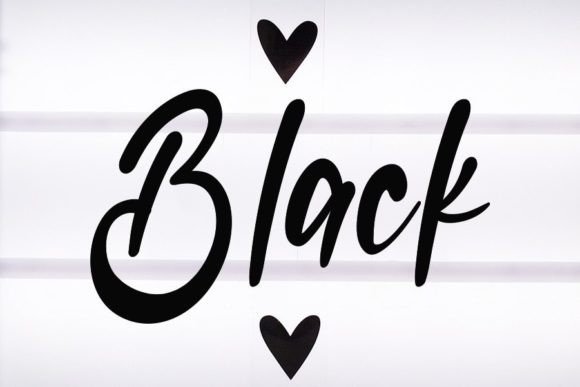
The Magic of Black Font: A Designer’s New Best Friend
I’ll never forget the time I was working on a project for a client who wanted a elegant and sophisticated look. I had spent hours browsing through font libraries, but nothing seemed quite right. That was when I stumbled upon Black Font, a beautiful handwritten font that instantly caught my eye. Its unique blend of elegance and playfulness made it the perfect fit for my project, and I knew right then that I had to share it with the world.
What I Love About Black Font
• ✨ Elegant and sophisticated look that’s perfect for a variety of design projects
• 💫 Unique and distinctive style that sets it apart from other fonts
• 🎨 Highly versatile and can be used for a range of applications, from logos to social media graphics
While Black Font is an amazing font, it’s not without its quirks. For example:
• 🤔 It can be a bit overused, so make sure to use it sparingly to avoid clichés
• ⚠️ Some of the glyphs and special characters can be a bit finicky, so be prepared to do some troubleshooting
The Backstory Behind Black Font
Black Font was designed by a team of talented typographers who wanted to create a font that was both elegant and sophisticated. The font was inspired by classic calligraphy and handwriting, with a modern twist. The designers spent countless hours perfecting the font, making sure that every detail was just right.
Q: What is Black Font?
A: Black Font is a beautiful handwritten font that’s perfect for designs that need a touch of elegance and sophistication.